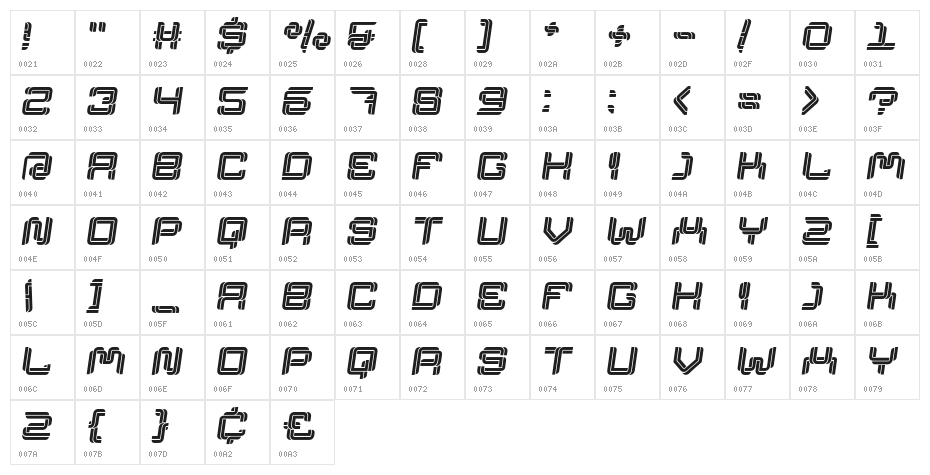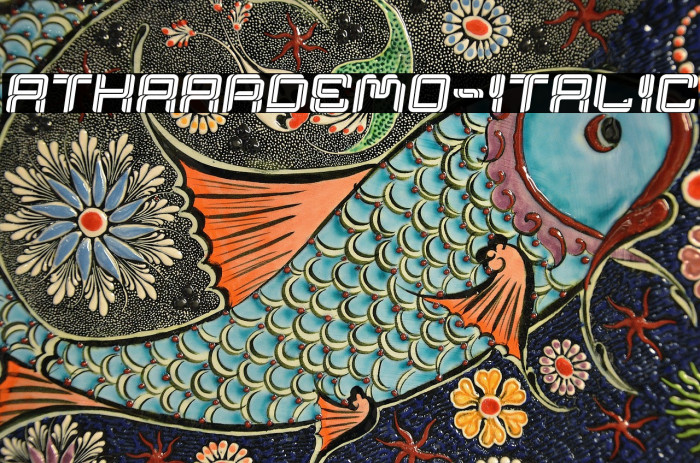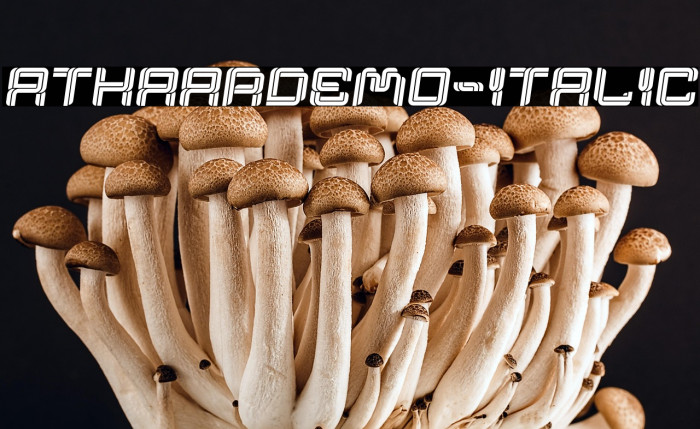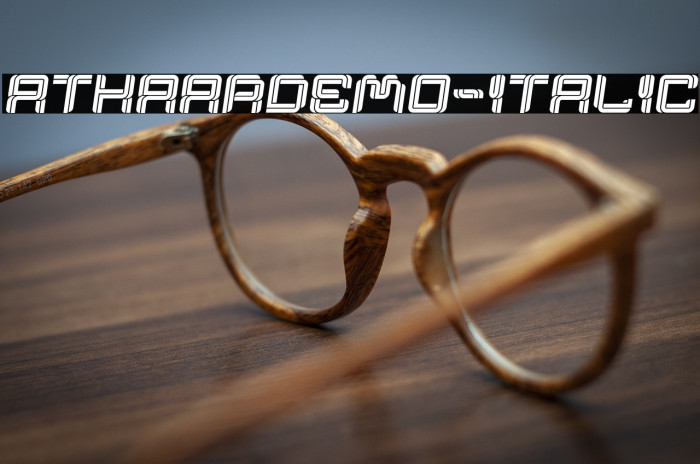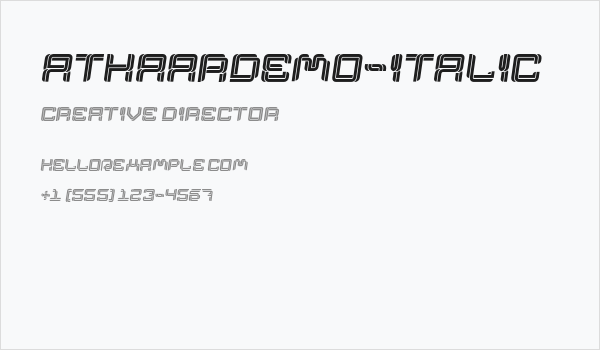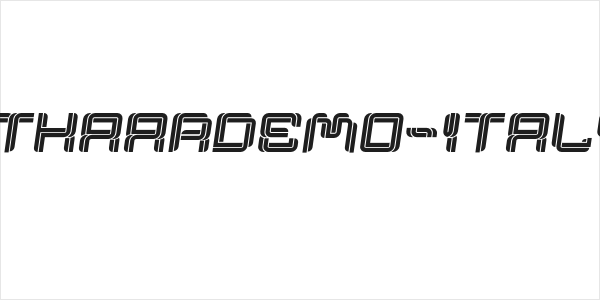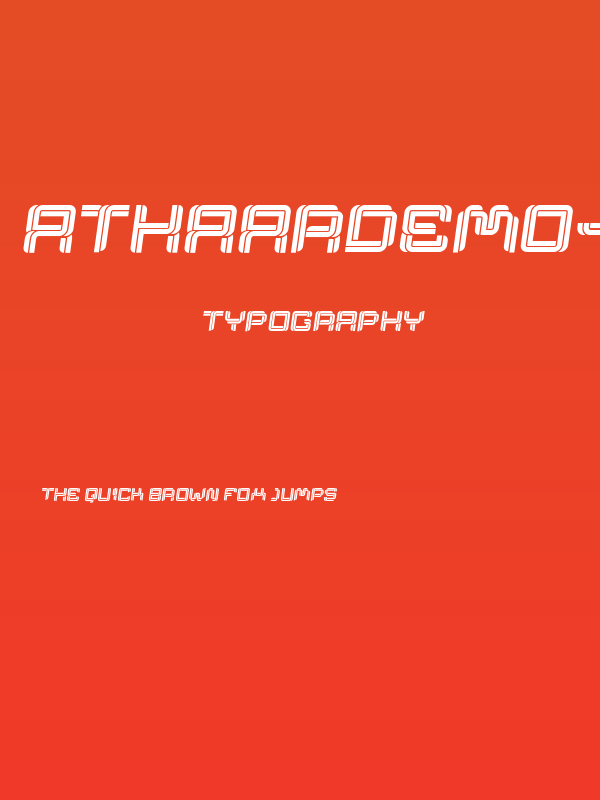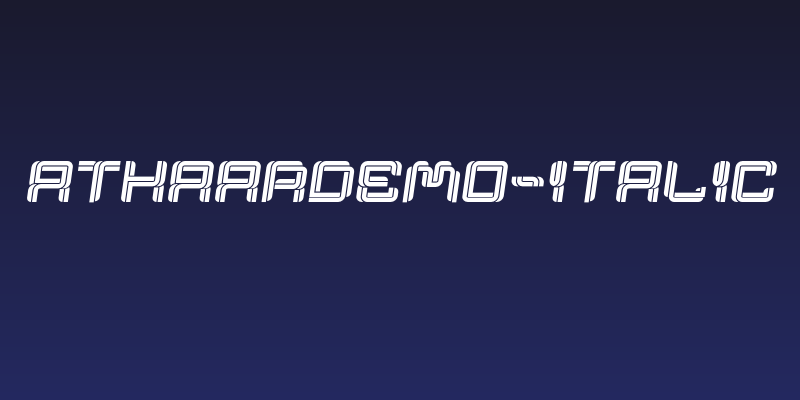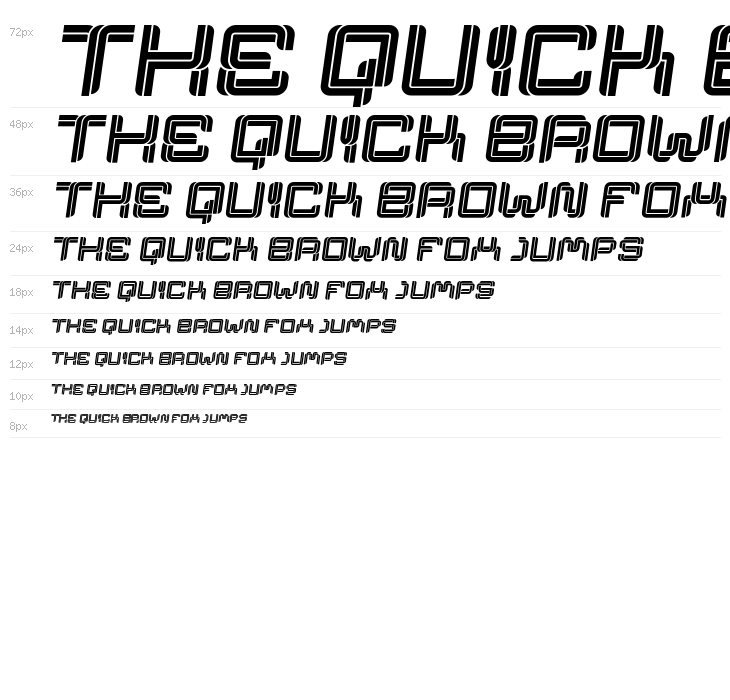
AthaarDemo-Italic Font
AthaarDemo-Italic Description
This font features a futuristic and geometric design with a distinct three-dimensional effect. The characters are composed of multiple parallel lines that create a layered appearance, giving the font a dynamic and modern feel. The uppercase and lowercase letters maintain a consistent style, with angular edges and a bold presence. The numerals and special characters follow the same design principles, ensuring uniformity across all glyphs. This font is ideal for projects that require a cutting-edge and technological aesthetic, making it suitable for branding, posters, and digital interfaces.
| Proposed Projects | Ideal for technology branding, sci-fi posters, digital interfaces, and modern advertising. |